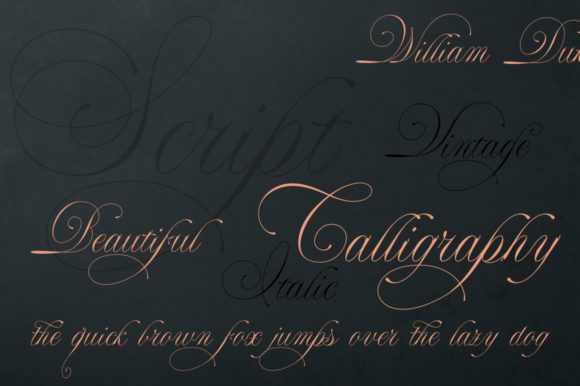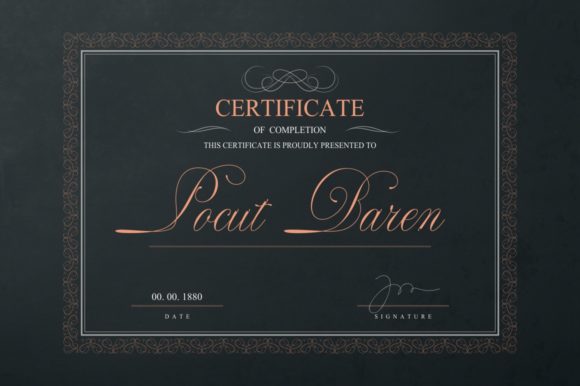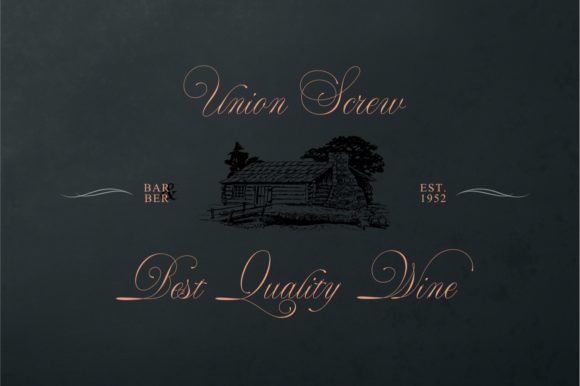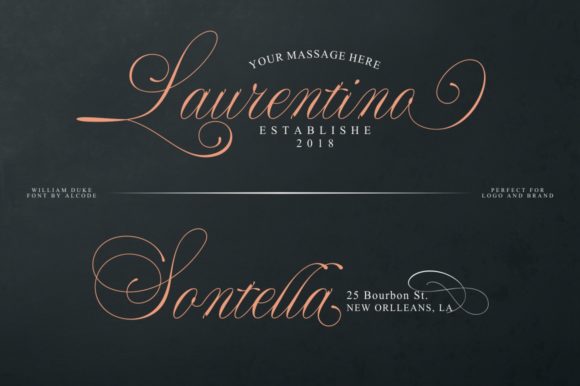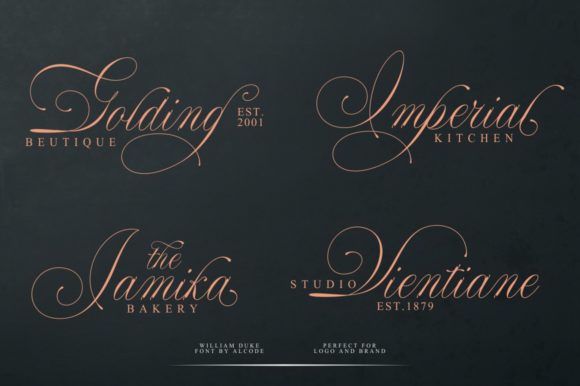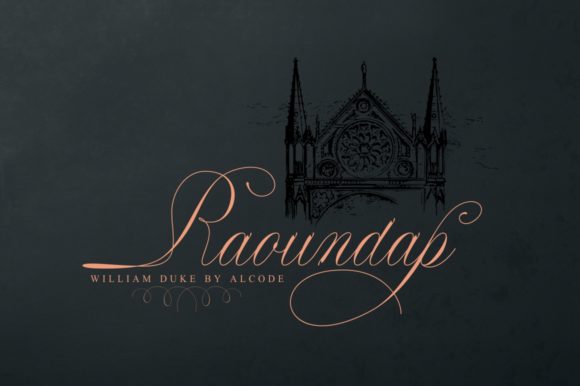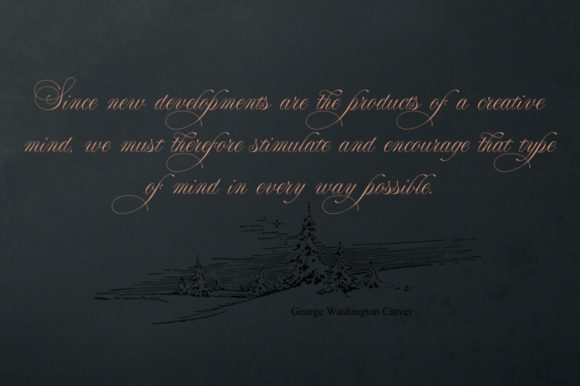
William Duke Font
About William Duke Font
William Duke is a luxurious and delightful script that features gorgeous swashes. This classic calligraphy font will make any design project stand out.